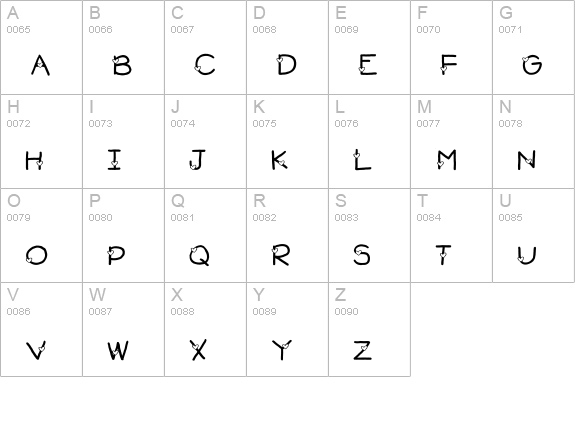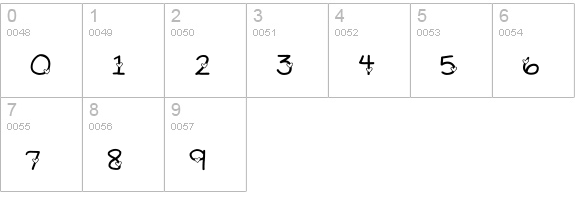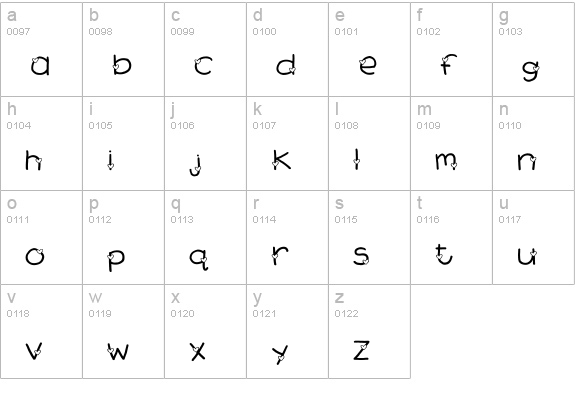
2Peas Heart's Delight Font Details
2Peas Heart's Delight font is a stunning display typeface that will captivate your heart at first sight. Its delicate and whimsical design is perfect for adding a touch of romance and charm to any project. With its beautiful hand-drawn style, this font is ideal for invitations, greeting cards, wedding stationery, and more. What makes 2Peas Heart's Delight even more special is that it is freely available to download at FontsMarket.com. Yes, you read that right! You can enjoy the beauty of this font without spending a dime. It's like a little gift from the design gods themselves. This font features a wide range of characters, including uppercase and lowercase letters, numbers, punctuation marks, and special symbols. Its smooth and graceful curves create a harmonious flow that adds elegance to every word. Whether you're creating a romantic quote, a heartfelt message, or simply want to add a touch of love to your designs, 2Peas Heart's Delight will bring your words to life. The versatility of this font knows no bounds. It effortlessly adapts to various design styles, from vintage to modern, making it a go-to choice for designers and creatives alike. Its legibility ensures that your message will be clearly conveyed, while its unique charm adds that extra wow factor. Downloading 2Peas Heart's Delight from FontsMarket.com is a breeze. Simply visit the website, locate the font, and click the download button. Within seconds, you'll have this incredible typeface at your fingertips, ready to enhance your designs and evoke emotions. So, why wait? Add a touch of love and enchantment to your next project with 2Peas Heart's Delight font. Download it for free at FontsMarket.com and let your creativity soar.